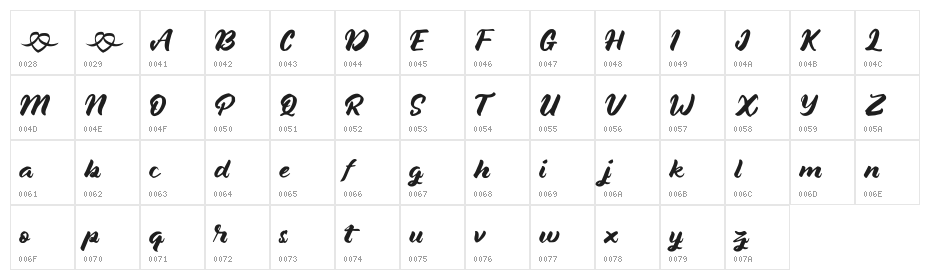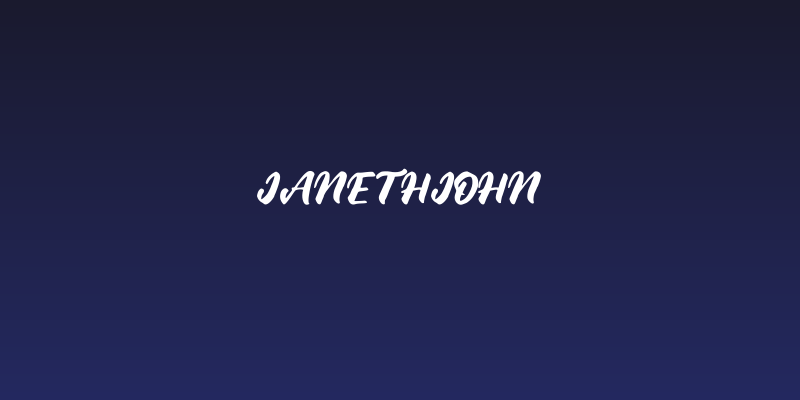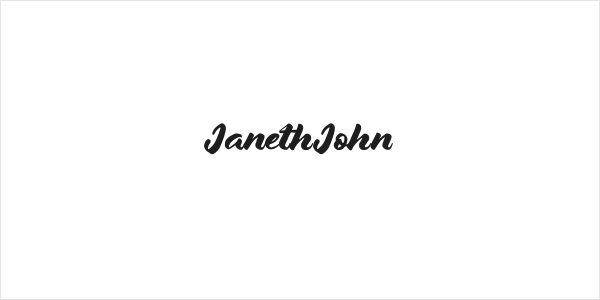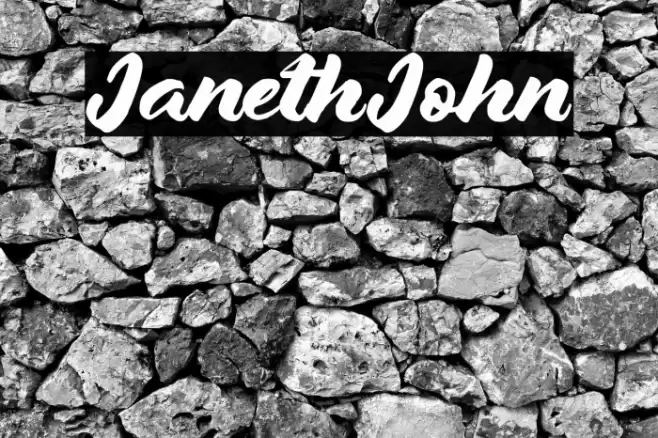
JanethJohn Font
JanethJohn Description
This font features a bold and expressive script style, characterized by its fluid, cursive strokes and elegant flourishes. The uppercase letters are prominently designed with a sense of movement, while the lowercase letters maintain a consistent flow, enhancing readability. The font exudes a sense of sophistication and charm, making it ideal for projects that require a personal touch. The characters are well-spaced, ensuring clarity and legibility, even in smaller sizes. The overall design is both modern and timeless, suitable for a variety of creative applications.
| Use Case | Logos, Headlines, Invitations |
| Proposed Projects | Ideal for wedding invitations, greeting cards, branding, and logo design. |